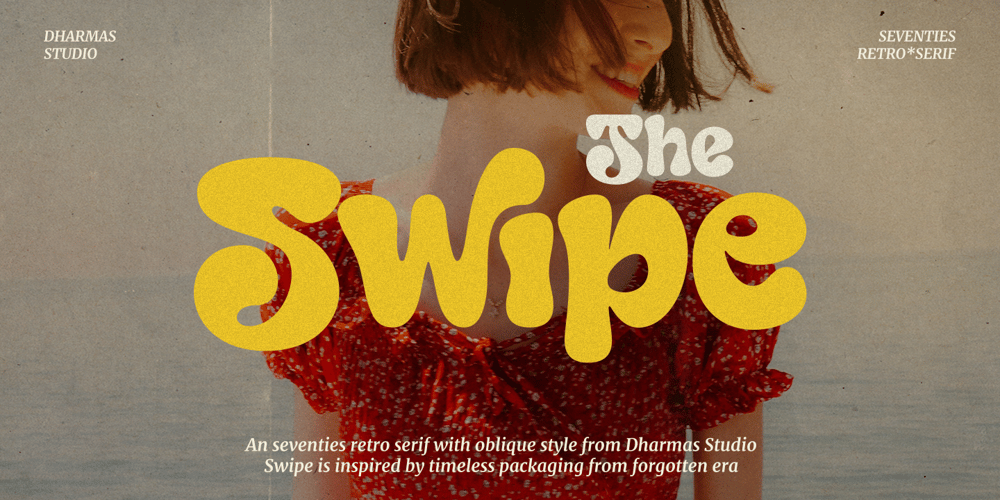
Swipe Font Family was designed by Ahmad Jamaludin and published by Ahmad Jamaludin. Swipe contains 2 styles and family package options. Say hello to our new retro bold font, Swipe!Swipe – An seventies font that has both a retro and fun look. It comes with a smooth curve and soft bold with a regular and oblique style that will make your project more stunning with nostalgic feels.Swipe – Have 105 beautiful alternates and ligatures which consist of 4 stylistic sets. Contains 2 styles regular and italic, this font is best used for headings, logotype, quotes, apparel design, posters, flyers, packaging, book cover, and many more.Super-versatile, have a scroll through all the previews to see how wide the range of uses that can be with Swipe, it’s so limitless!What you get Letters, numbers, symbols, and punctuation Has 105 beautiful alternates and ligatures Use in many programs even in Canva Multilingual Support Language Support: Danish, English, Estonian, Filipino, Finnish, French, Friulian, Galician, German, Gusii, Indonesian, Irish, Italian, Luxembourgish, Norwegian Bokmål, Norwegian Nynorsk, Nyankole, Oromo, Portuguese, Romansh, Rombo, Spanish, Swedish, Swiss-German, Uzbek (Latin)Come and say hello over on Instagram! https://www.instagram.com/dharmas.studio/Dharmas Studio